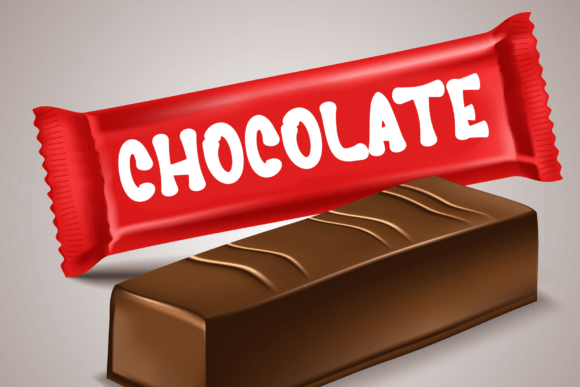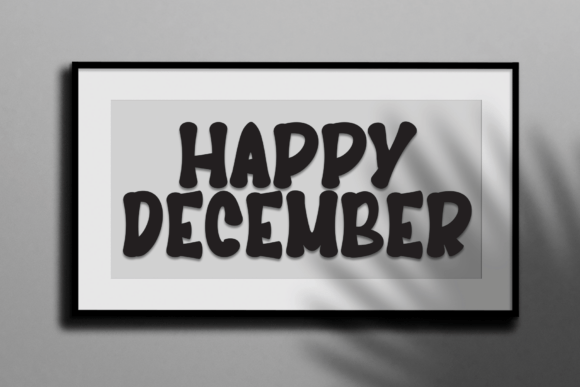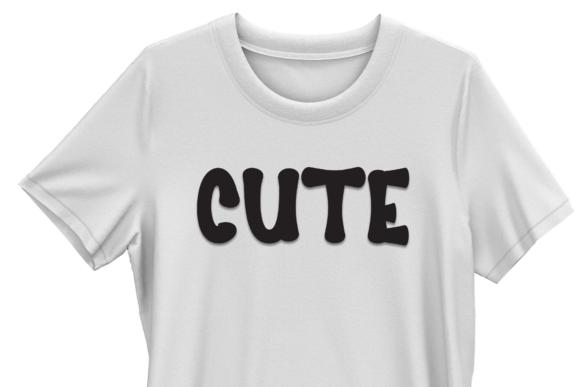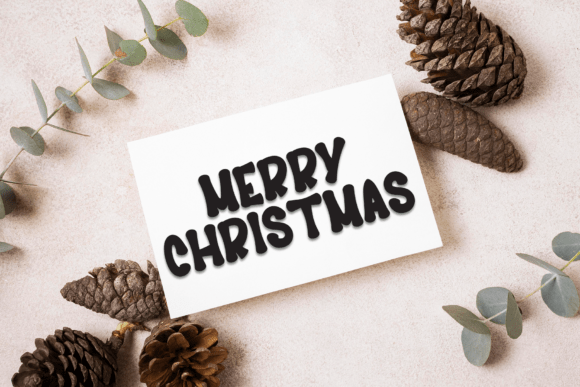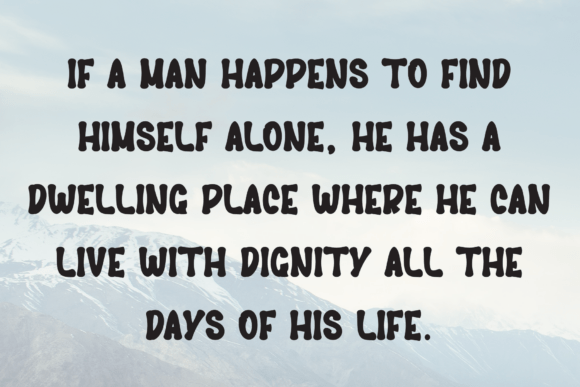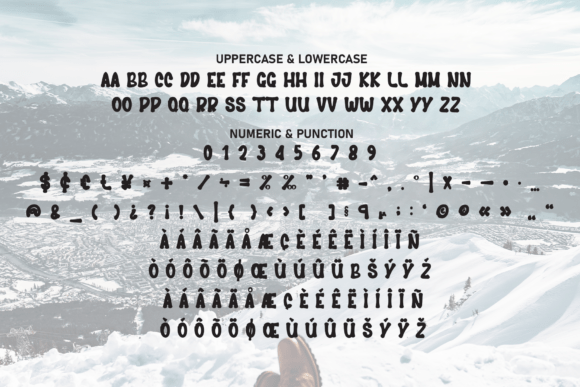
Introduction to Snow Vibes Font
Have you ever been working on a design project, pouring your heart and soul into it, only to feel like something’s missing? That’s when the perfect font can make all the difference. For those moments, we’re excited to introduce the Snow Vibes Font, a charming and approachable handwritten display font that’s sure to bring a smile to your face.
This delightful font exudes a unique allure and whimsy, making it a perfect fit for crafting enchanting wedding invitations, heartfelt cards, or any design endeavor that craves a playful twist. Whether you’re a seasoned designer or just starting out, the Snow Vibes Font is a valuable addition to your design resource library, offering a high-quality, free download that’s perfect for any creative project.
Key Features of Snow Vibes Font
- Unique, hand-drawn design with a winter theme, perfect for creative projects
- Supports a wide range of languages, making it a versatile choice for designers worldwide
- Perfect for winter-themed designs, from holiday cards to social media graphics and more
Honest Review: Snow Vibes Font
- Easy to customize and manipulate
⚠️ However, I did encounter a few limitations. The font can be a bit too playful for some designs, and the lack of bold weight options can make it difficult to use in certain situations.
Overall, I’m really impressed with the Snow Vibes Font. It’s a high-quality design resource that’s perfect for creative projects. With a little creativity and experimentation, you can achieve some truly amazing results. I highly recommend giving it a try!
Getting the Most Out of Snow Vibes Font
To get the most out of Snow Vibes Font, experiment with different font sizes, colors, and combinations with other fonts. Use it for creative projects such as holiday cards, social media graphics, and marketing materials.
Snow Vibes Font is commonly used for winter-themed projects, such as Christmas and New Year’s Eve designs. It’s also a great choice for projects that require a fun and playful tone. With its unique design, Snow Vibes Font is a great addition to any design project.